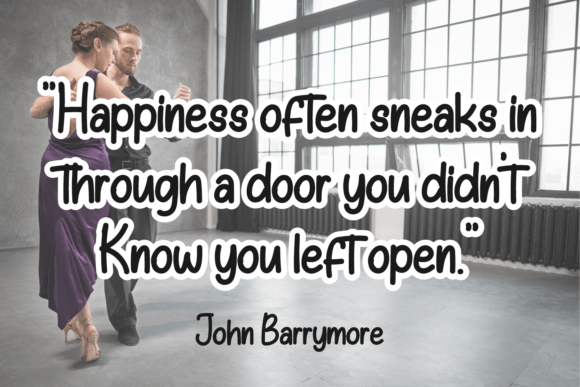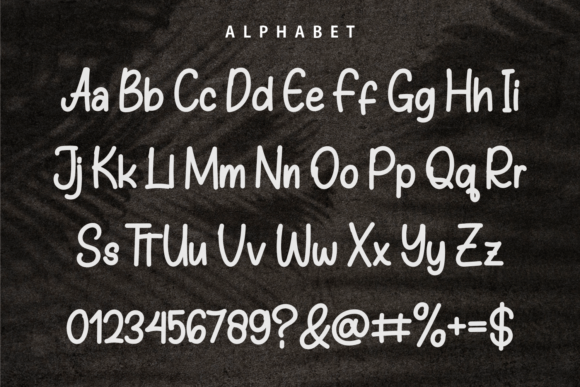
Introduction to Simple Dance Font
Introducing Simple Dance – an exquisite font design imbued with a neat handcrafted flair.
This display font offers an elegant touch, ideal for branding purposes and perfect for creating a seamless experience across various visual mediums It’s the smooth operator you never knew you needed, perfect for injecting charm into birthday cards or delivering sophistication to wedding invitations.
Key Features of Simple Dance Font
Why Choose Simple Dance Font?
Simple Dance Font offers exceptional quality and versatility, making it a valuable addition to your design toolkit. Whether you’re creating for personal projects or commercial use, Simple Dance Font delivers professional results.